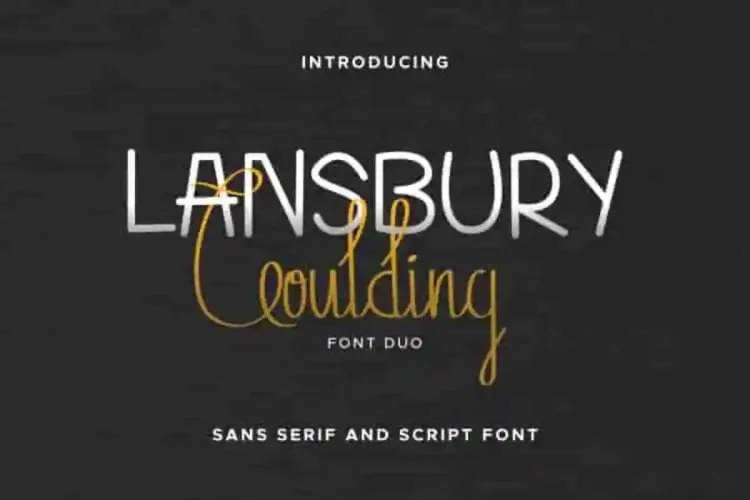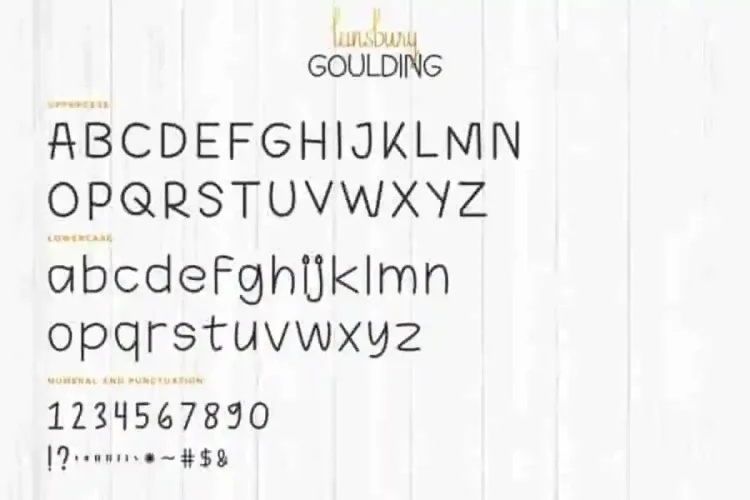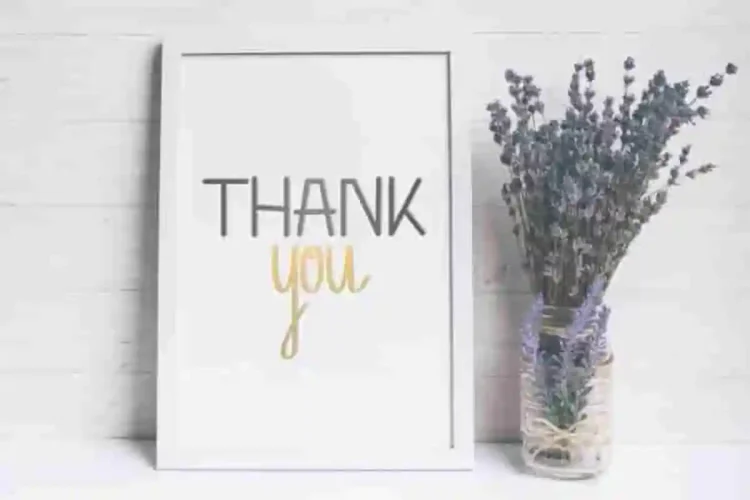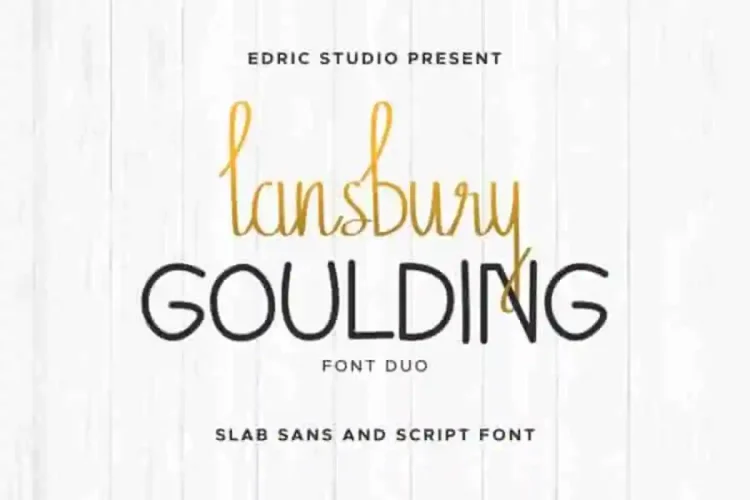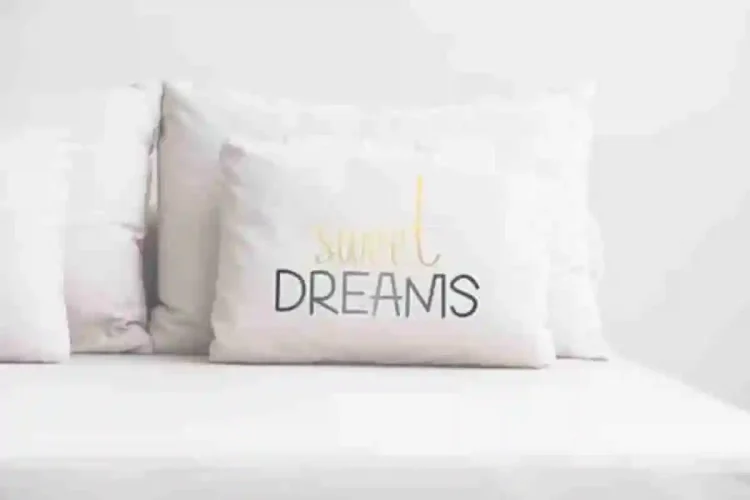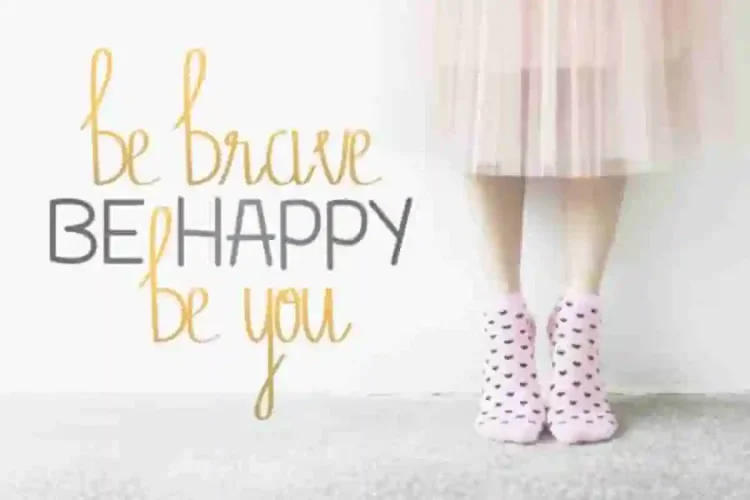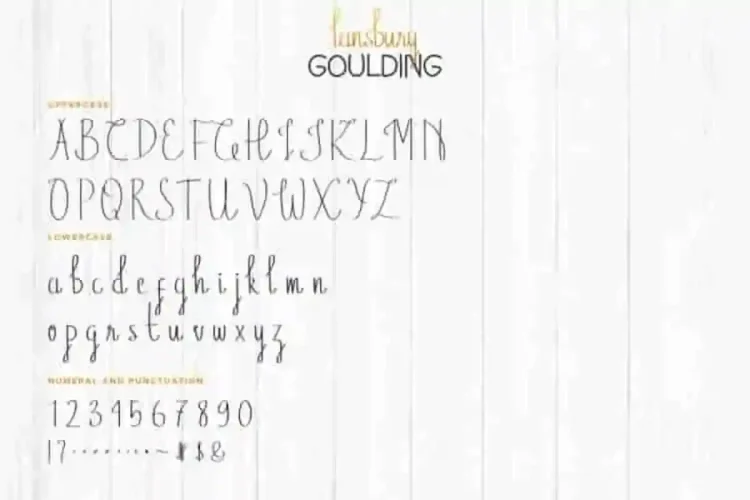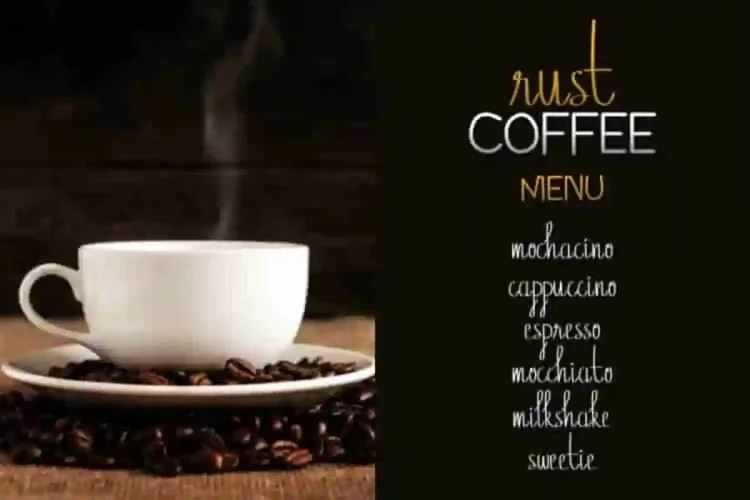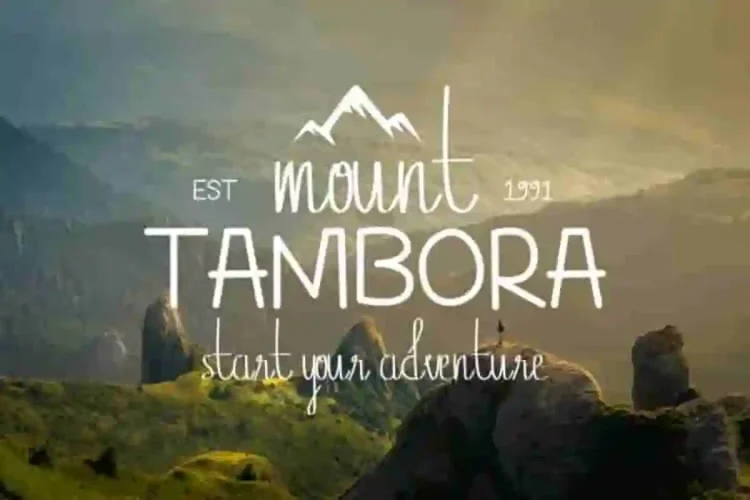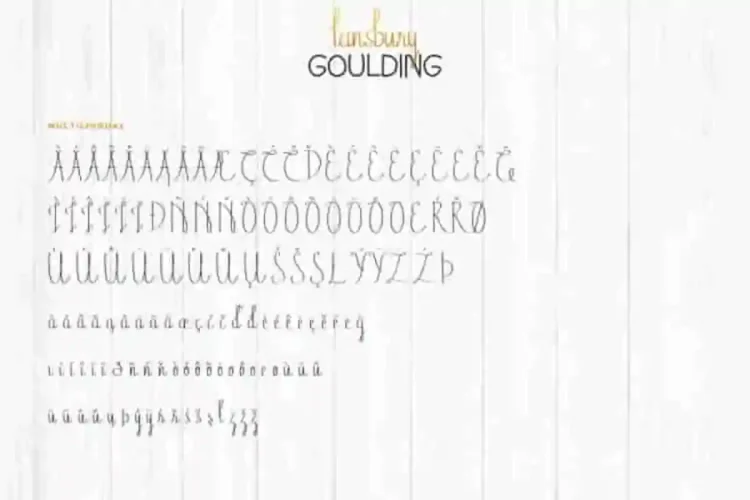
Lansbury Goulding Modern Script Font Duo
Lansbury Goulding Script Font Duo is a font family with two different unique styles. Handcrafted with care in our Studio, Indonesia. The designers of these fonts are Yasri, Suci and Ali.
Lansbury Goulding Font Duo comes with two different styles : Sans Display and Handwriting script font. Delivering elegance, sophistication, and style in every letter. It has a stunning characters set, perfectly managed with well spaced and kerning.
Lansbury Goulding Font Duo will be great for any projects  including : branding and logo (with extended license), stationery, business card, signage, flyer, brochure etc. Almost all industries will be match for this typeface: wedding, events, real estate, architect, law firm, florist, gardening, makeup artist, travel, hotel, musician etc.